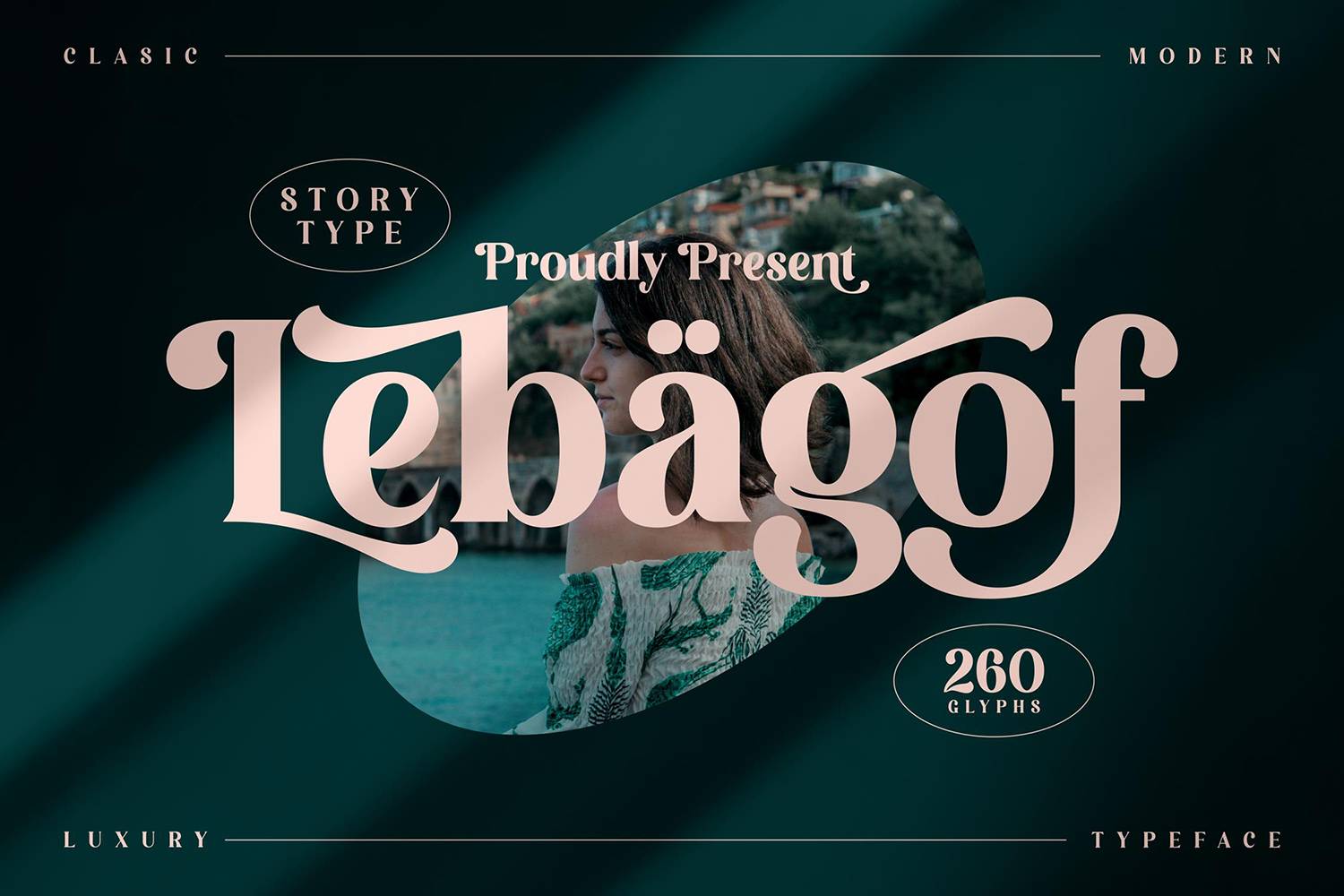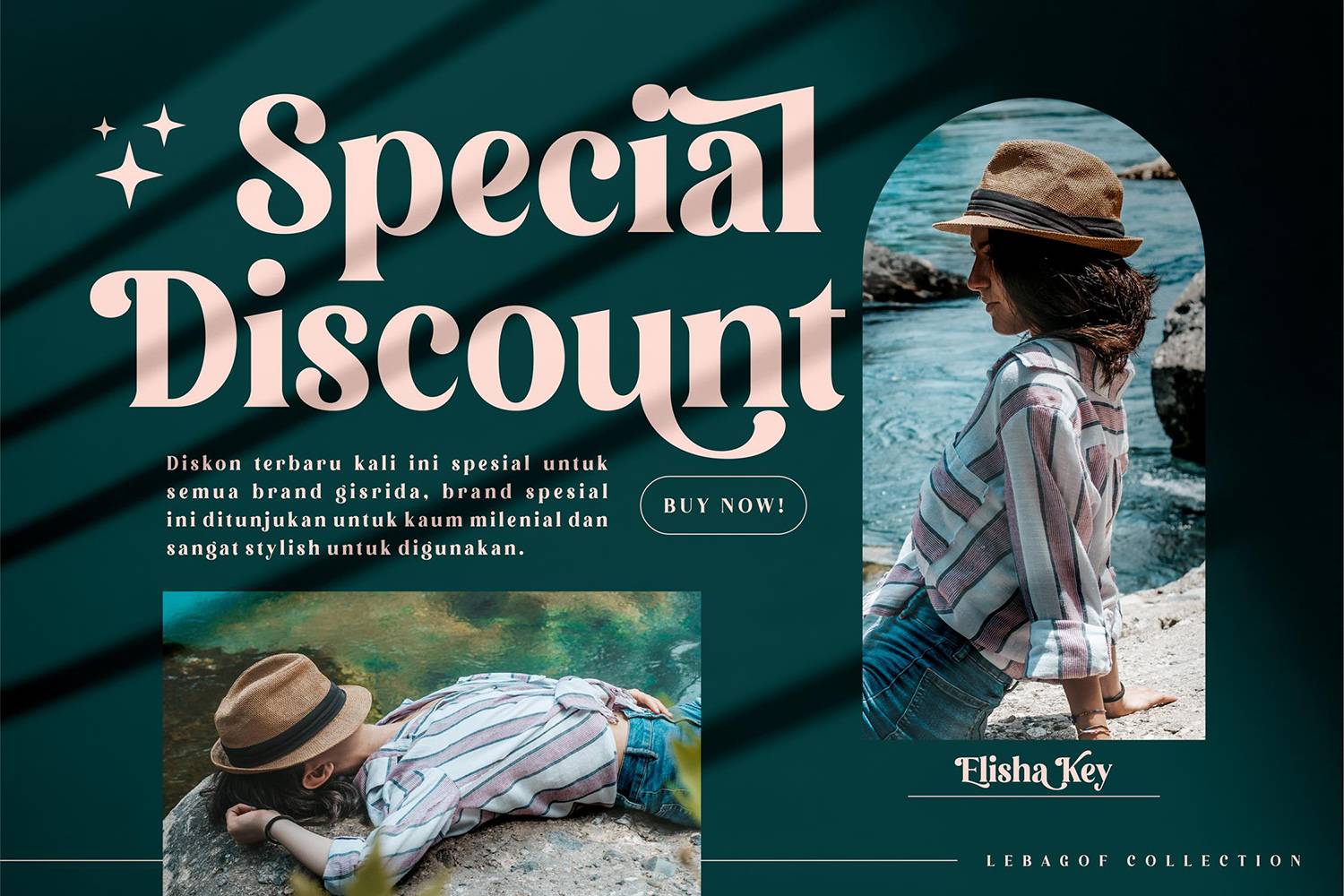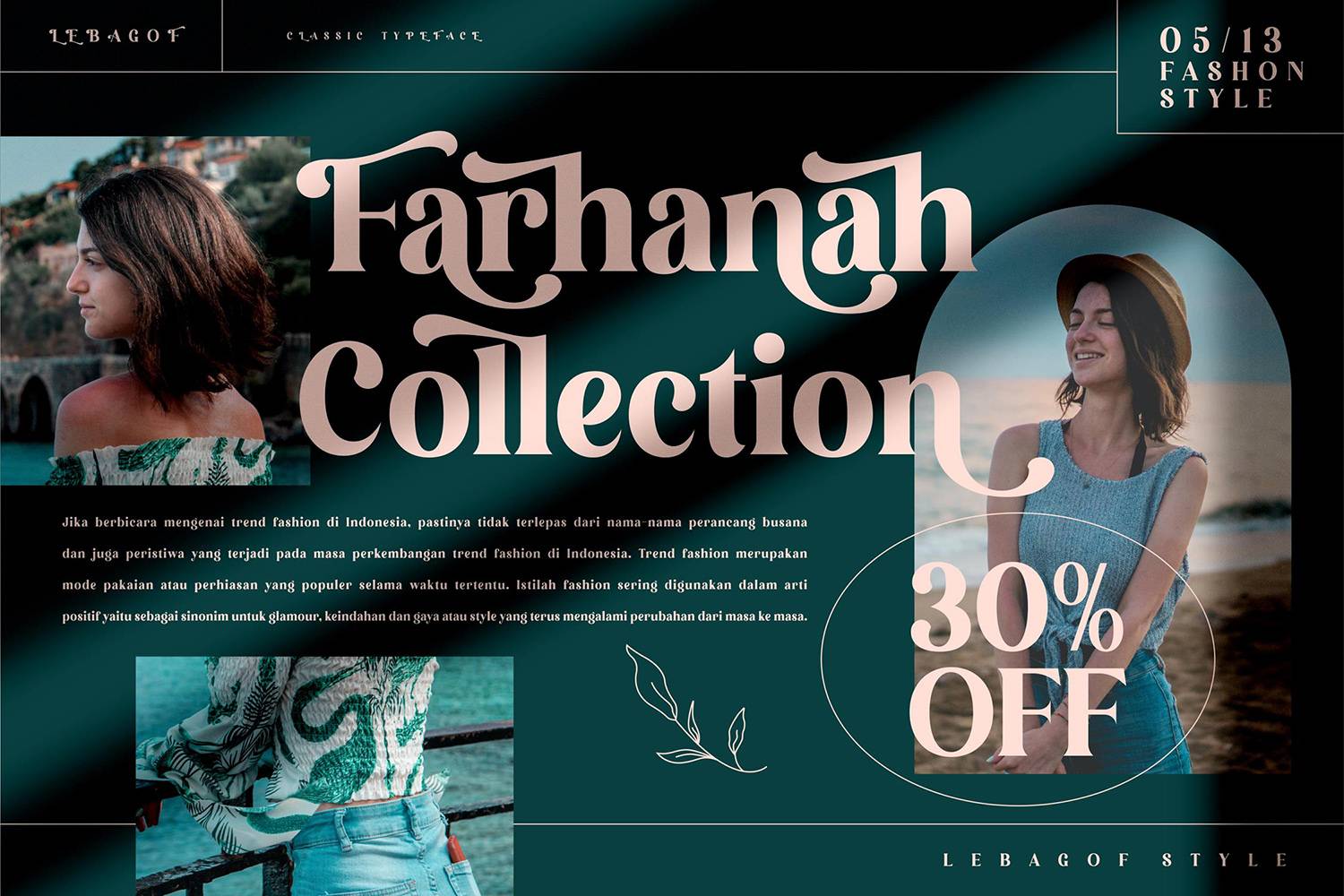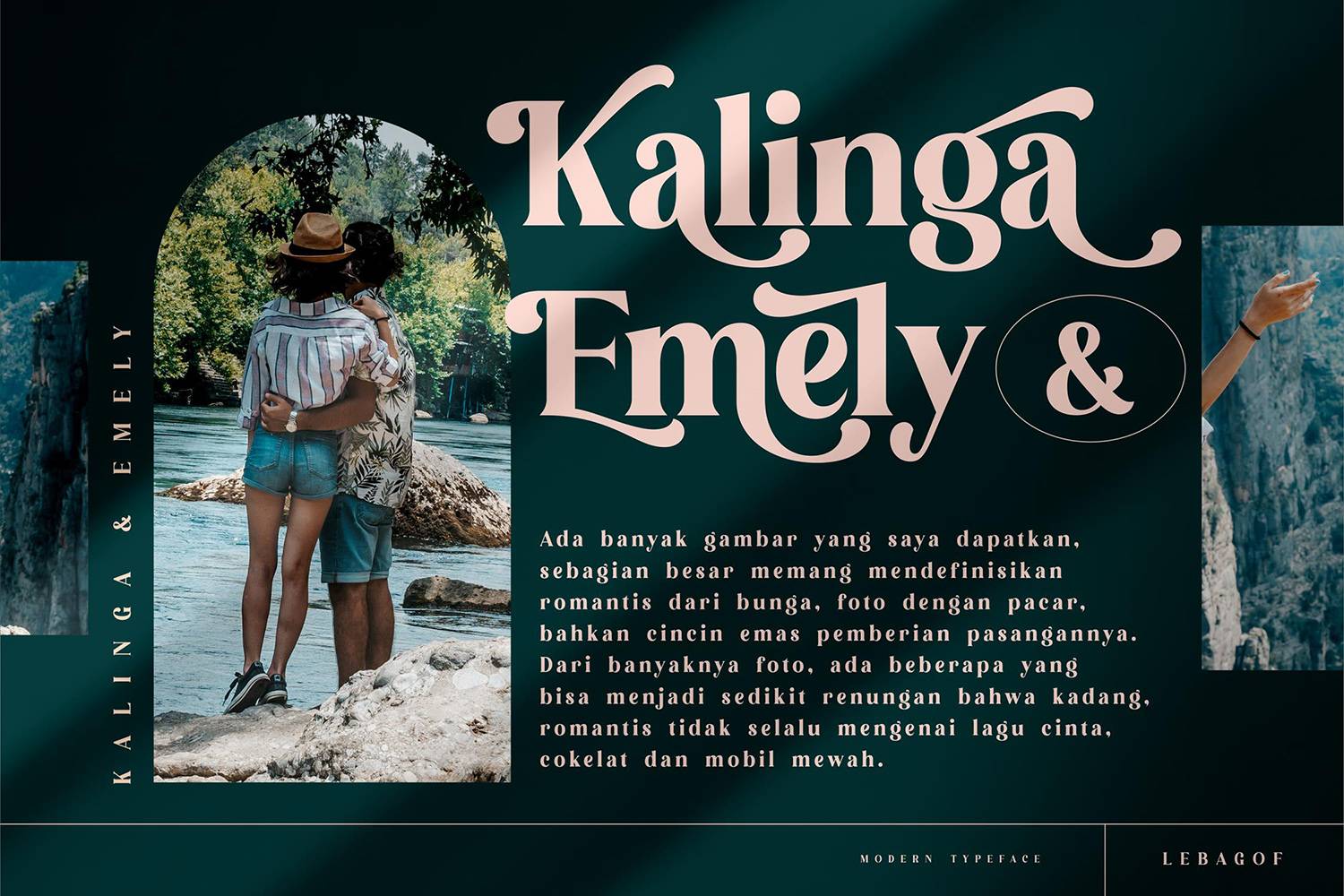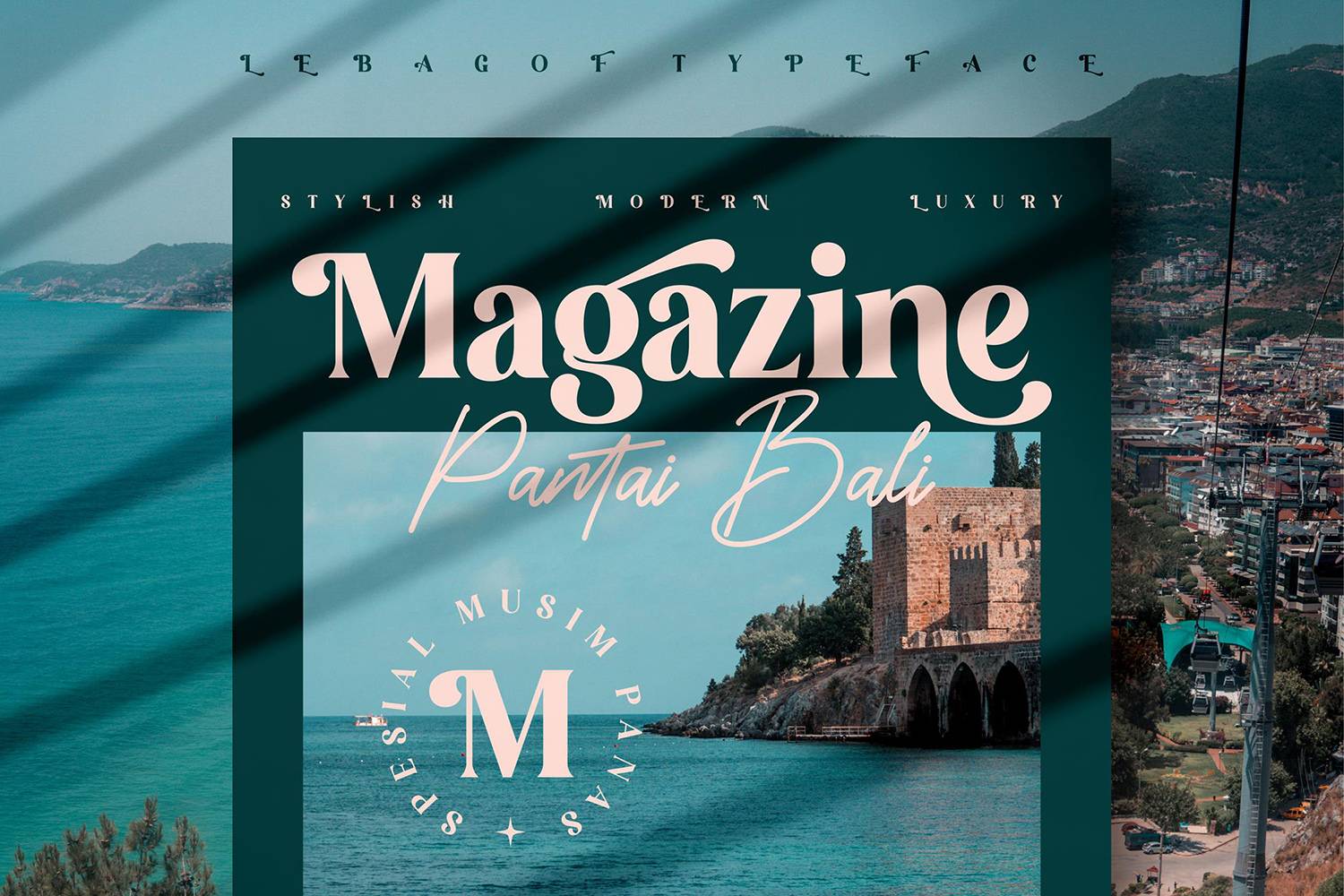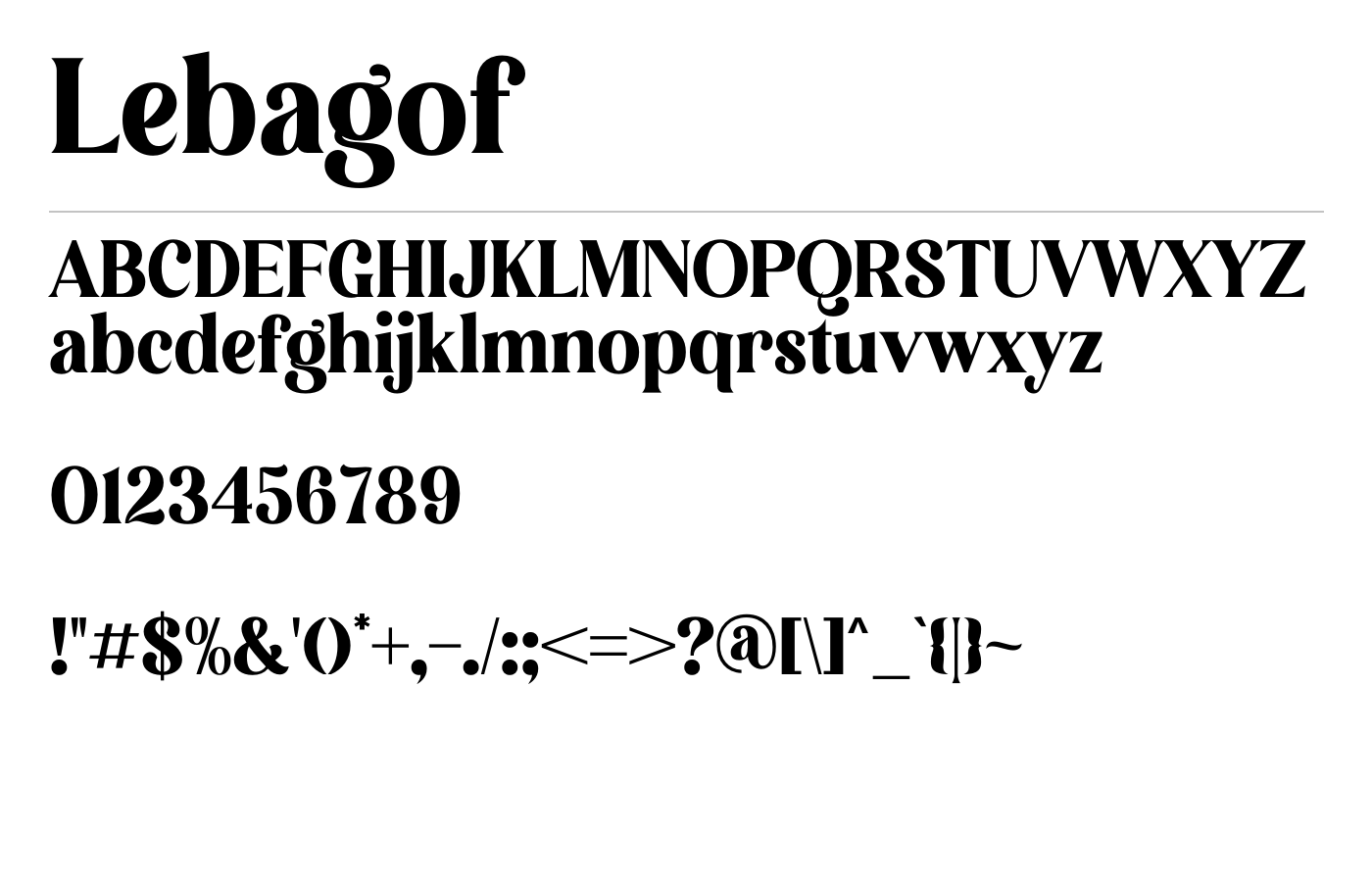
Lebagof is a bold serif font featuring a high contrast between thick and thin strokes, with elegant bracketed serifs and a slightly condensed width that gives it a confident, classic feel. Its refined letterforms, including distinctive double-story lowercase g and strong details in characters like Q and & make it ideal for sophisticated branding and editorial headlines. This font works well in luxury packaging, fashion logos, and upscale editorial use where a timeless yet striking presence is desired.
Lebagof Font